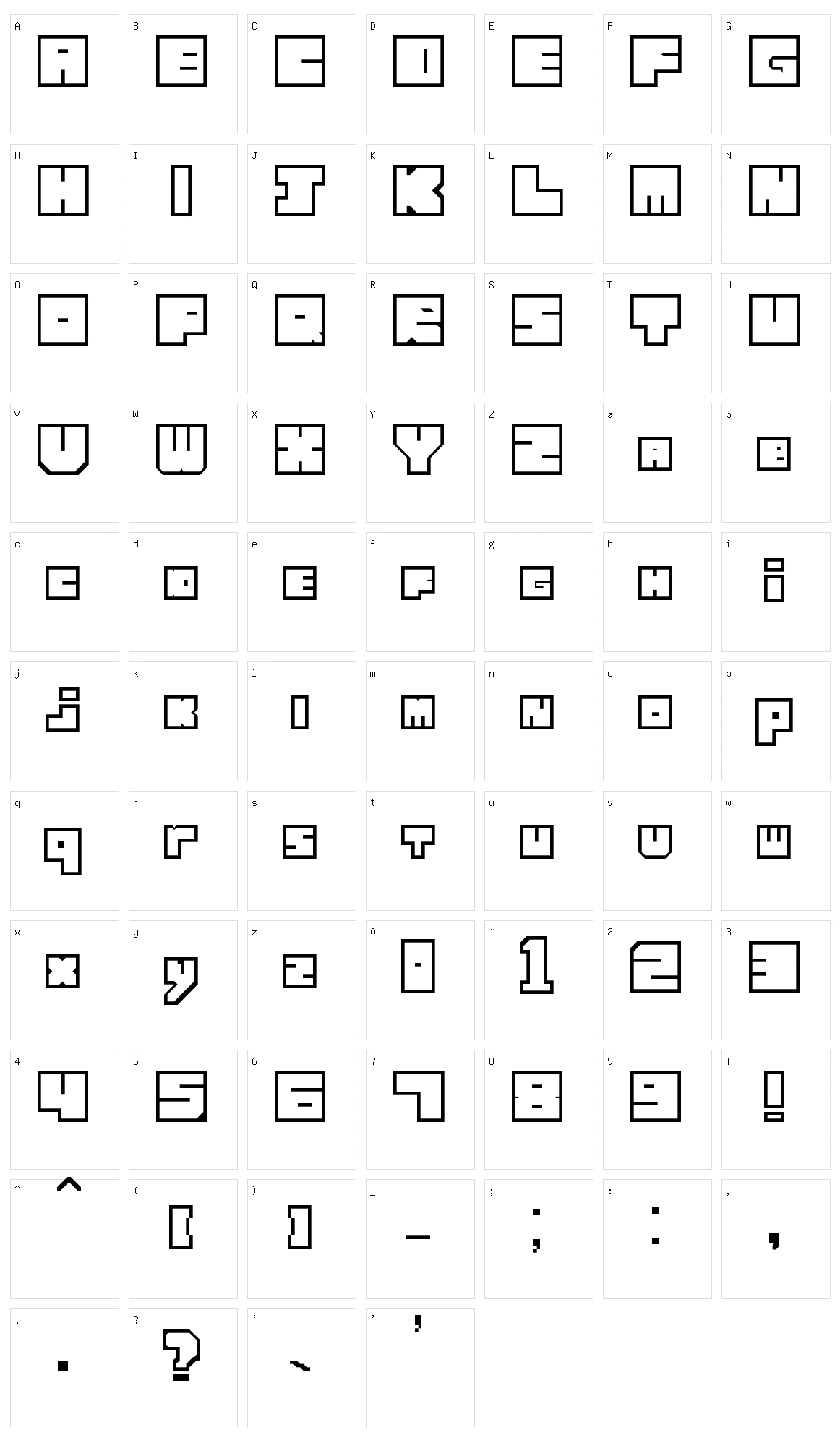
The free font Lettres cubiques is carefully designed by Nicolas Gautier, showcasing a thoughtful balance of creativity and usability and falls under the Square font style. When you download the ZIP file, it contains only 3.76 KB of font files, making it lightweight and quick to download. Please review the license details below to understand permitted usage and distribution rights. If license information is not available, we recommend using this font for personal projects only or contacting the author directly for commercial usage permissions.